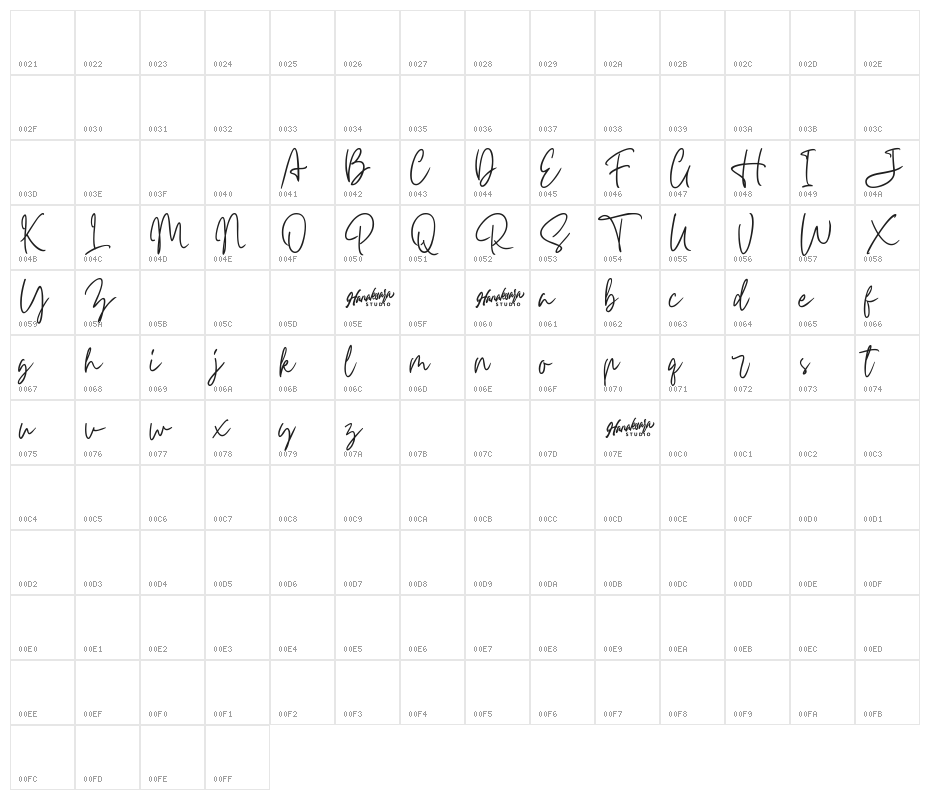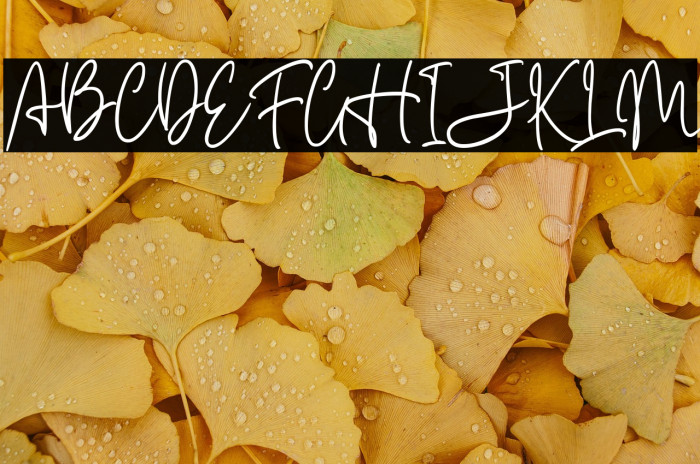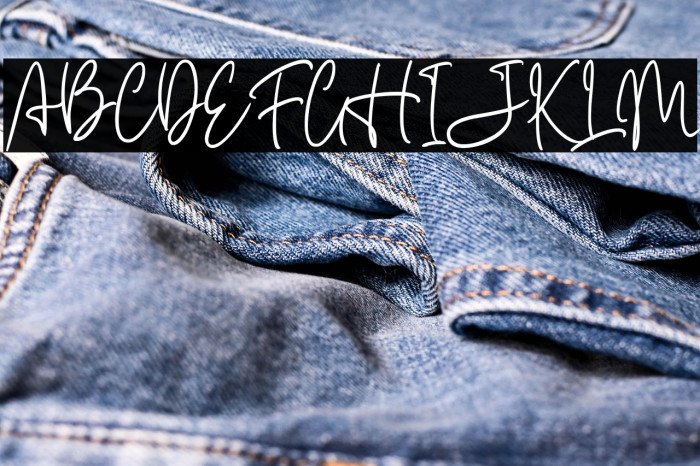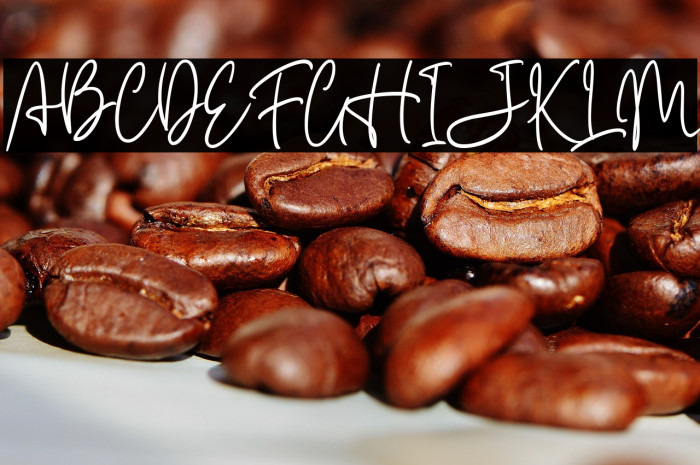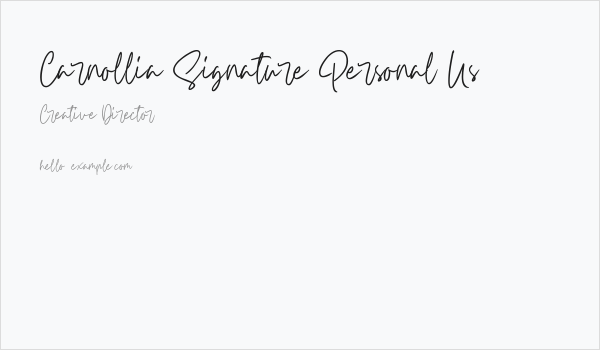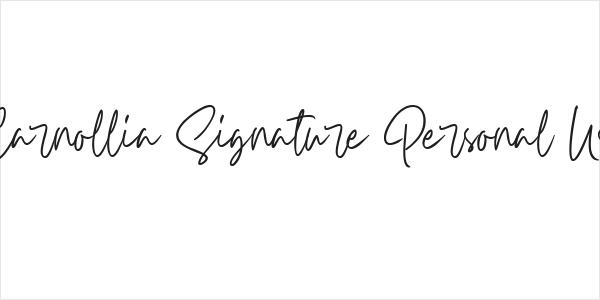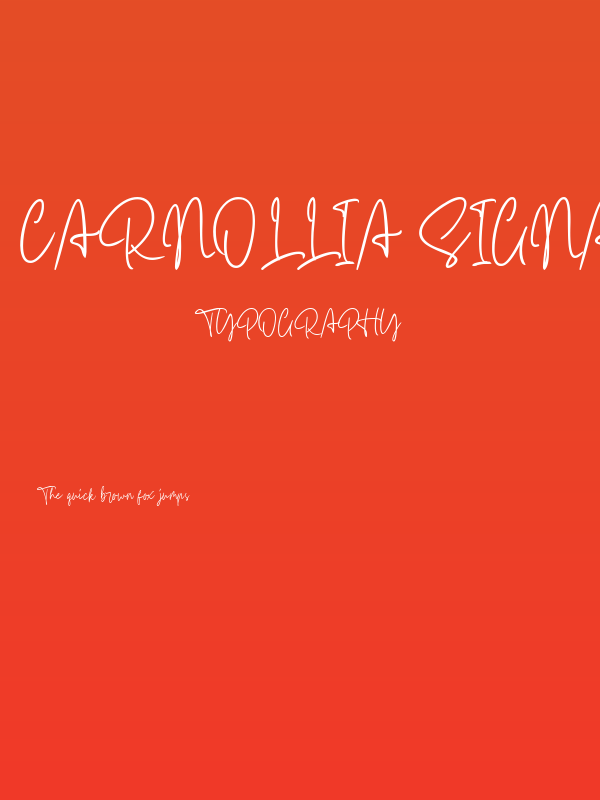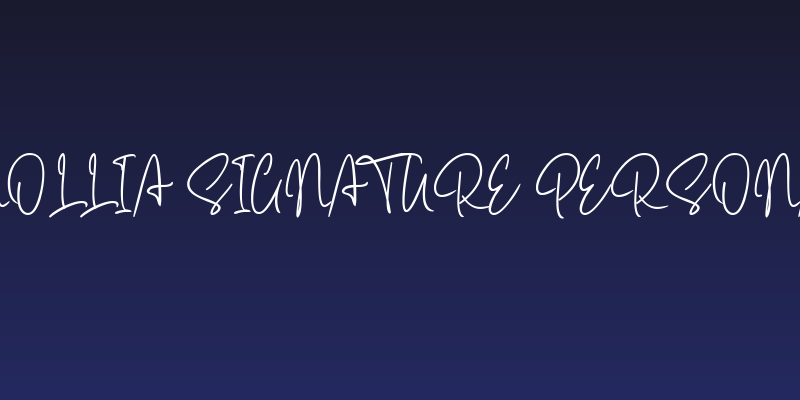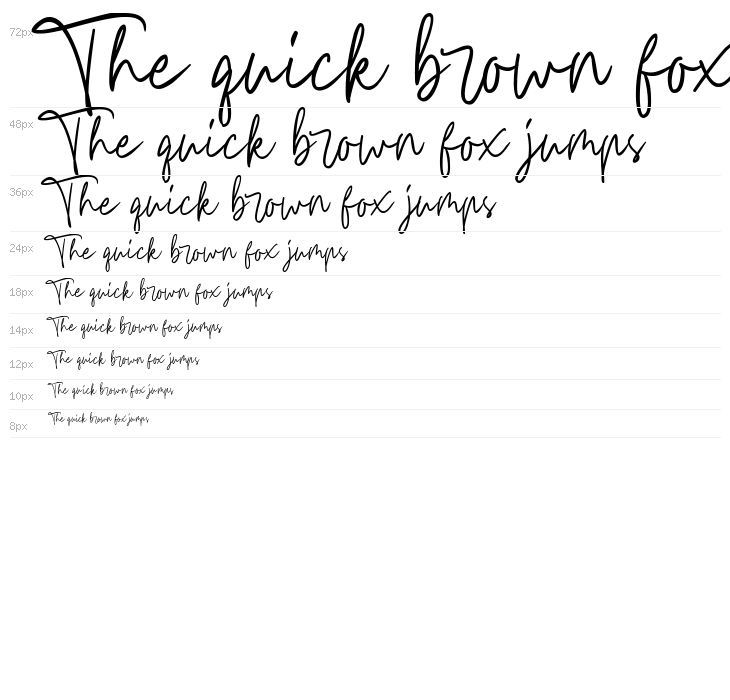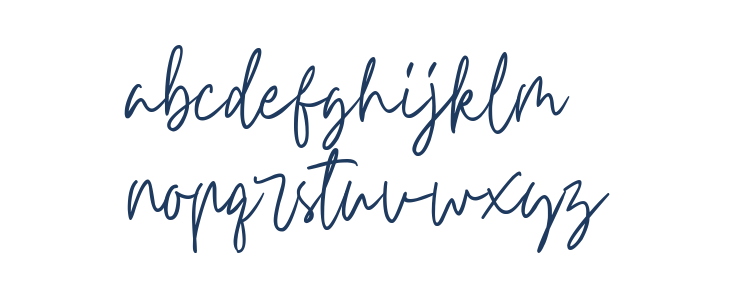
Carnollia Signature Personal Us Font
Carnollia Signature Personal Us Description
This font exudes a sophisticated and elegant handwritten style, characterized by fluid, cursive strokes that mimic the natural flow of handwriting. The uppercase letters are distinct with a graceful flair, while the lowercase letters maintain a consistent and smooth connection, enhancing readability. The font's design is both stylish and personal, making it ideal for projects that require a touch of elegance and individuality. The characters are well-balanced, with a slight slant that adds to the dynamic and lively appearance. This font is perfect for creating a personal touch in invitations, branding, and other creative projects.
| Proposed Projects | Ideal for wedding invitations, personal branding, greeting cards, and elegant logos. |